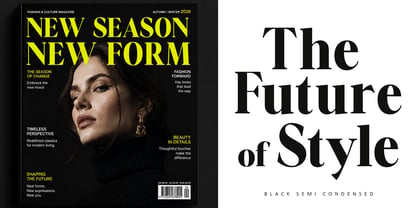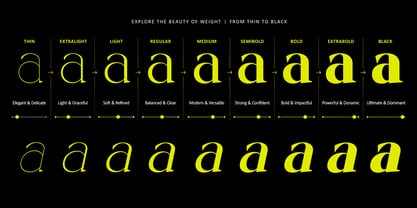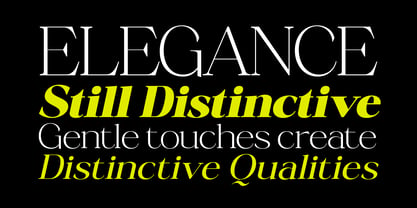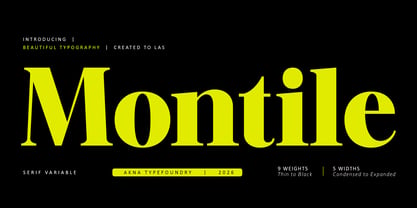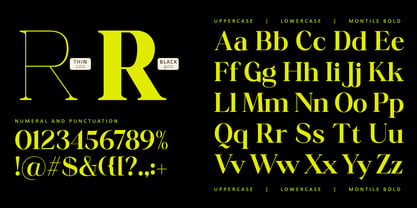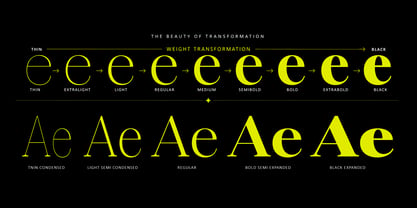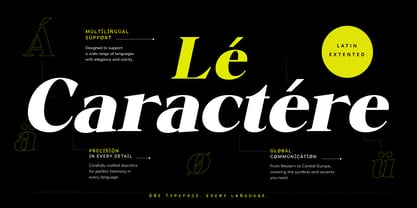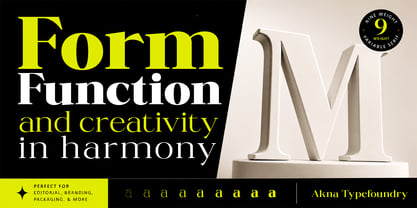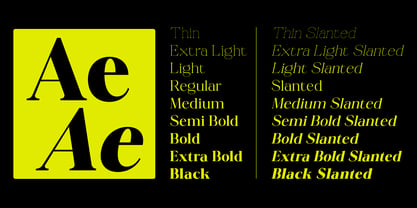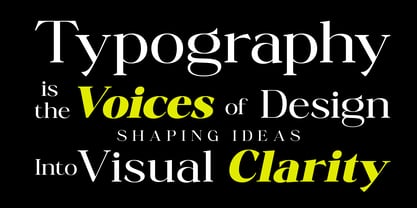
Montile
by Akna Typefoundry
The Montile Font Family was designed by Faris Akna and published by Akna Typefoundry. Montile contains 91 styles and family package options. More about this family
Montile is a modern serif with an elegant and bold character, designed to convey a strong yet refined editorial look. Its letterforms combine high stroke contrast, classic proportions, and sharp details, making it suitable for headlines, branding, fashion, magazines, and luxury projects.
As a variable serif, Montile offers flexibility in adjusting the thickness to create a variety of visual expressions—from light and sophisticated to bold and dramatic. It is suitable for designs requiring modern character, distinctive typography, and premium visual presence.
Designers: Faris Akna
Foundry: Akna Typefoundry